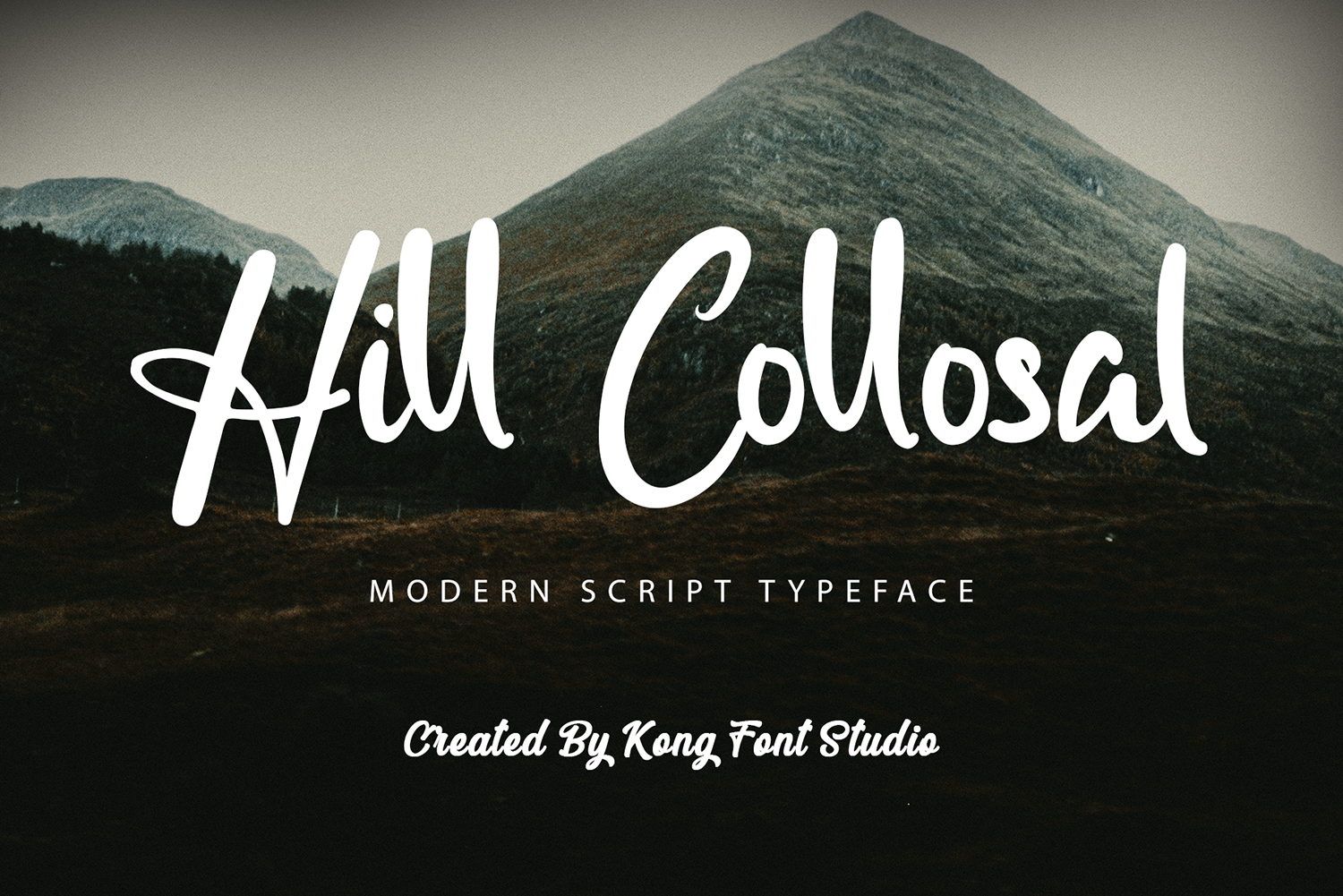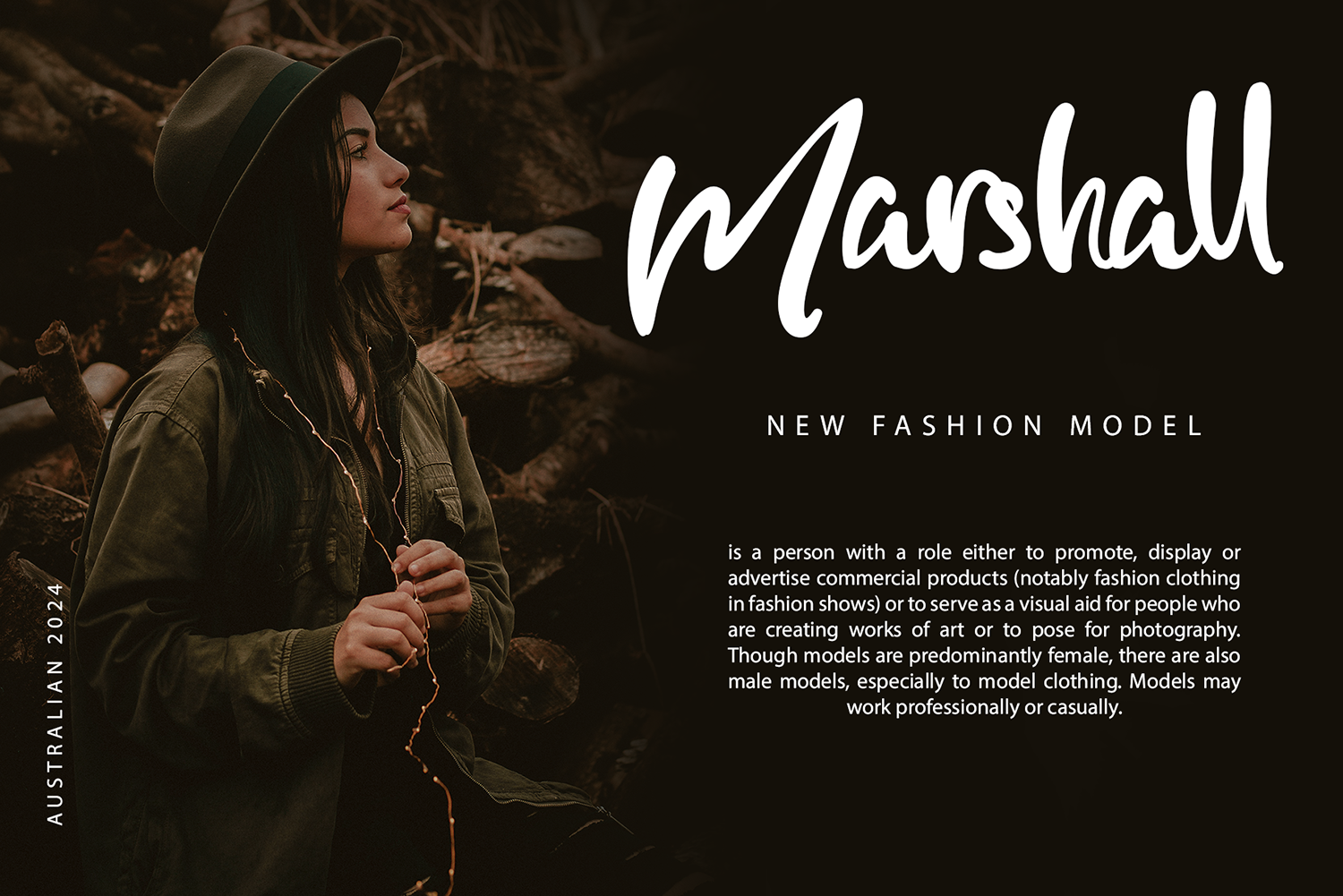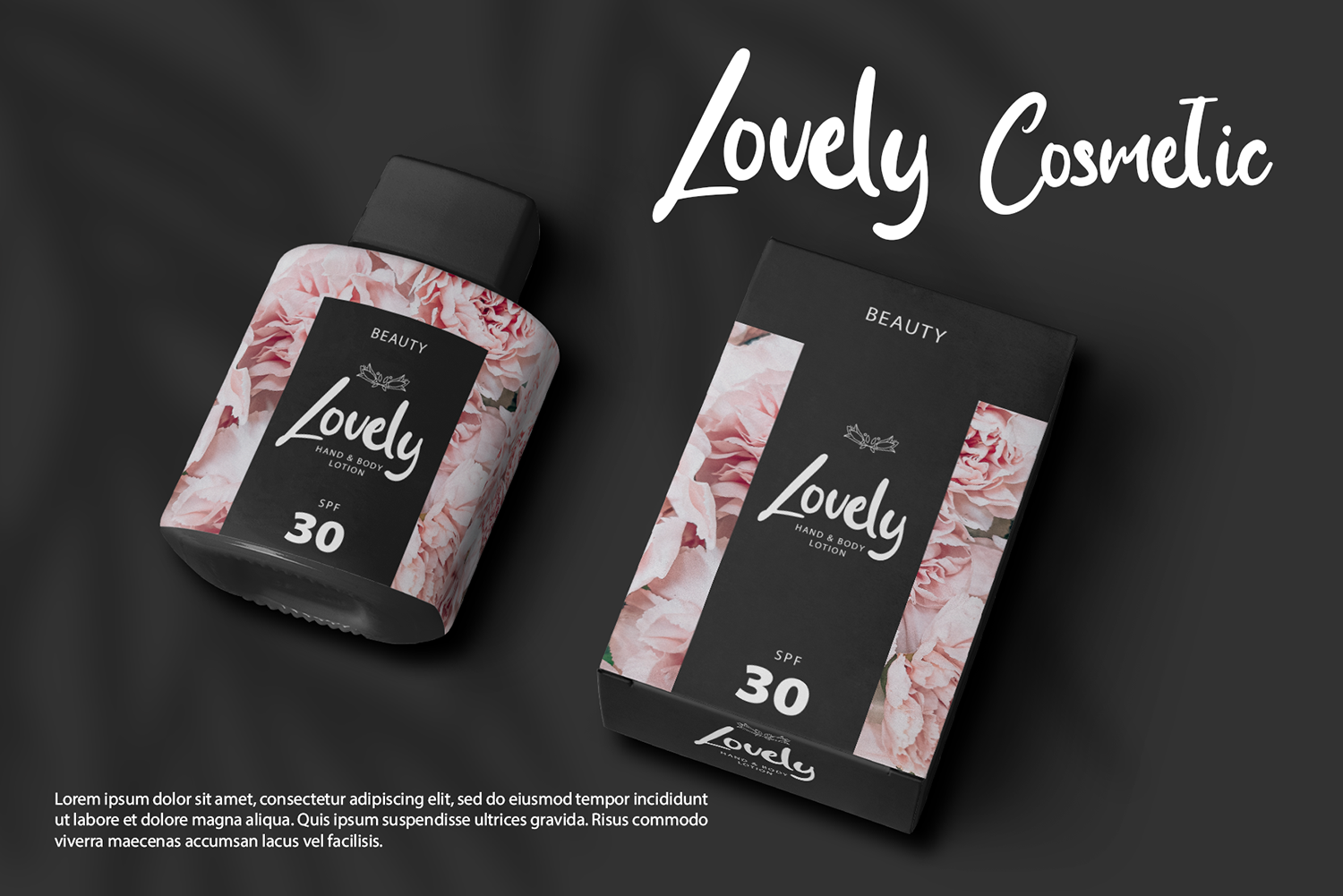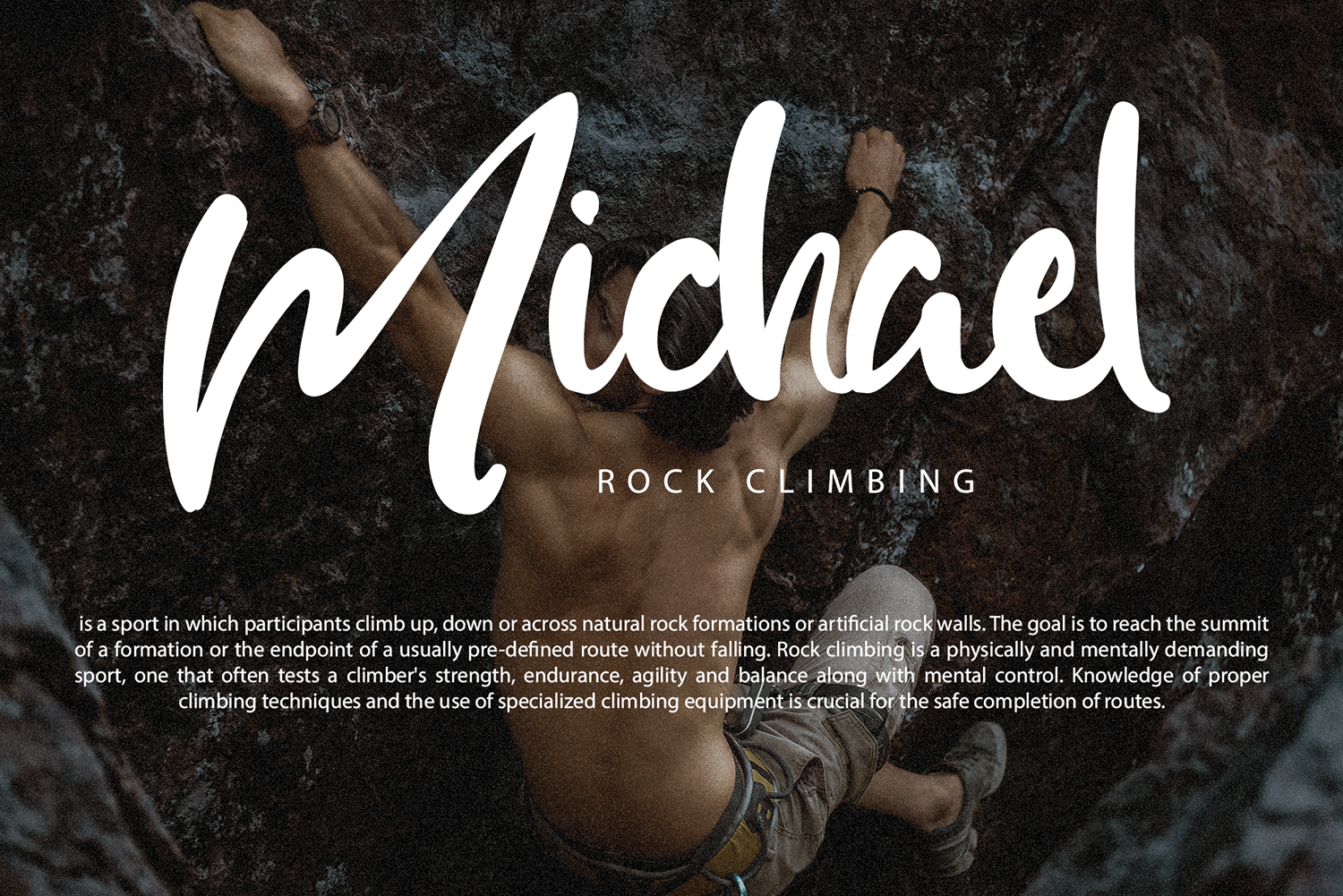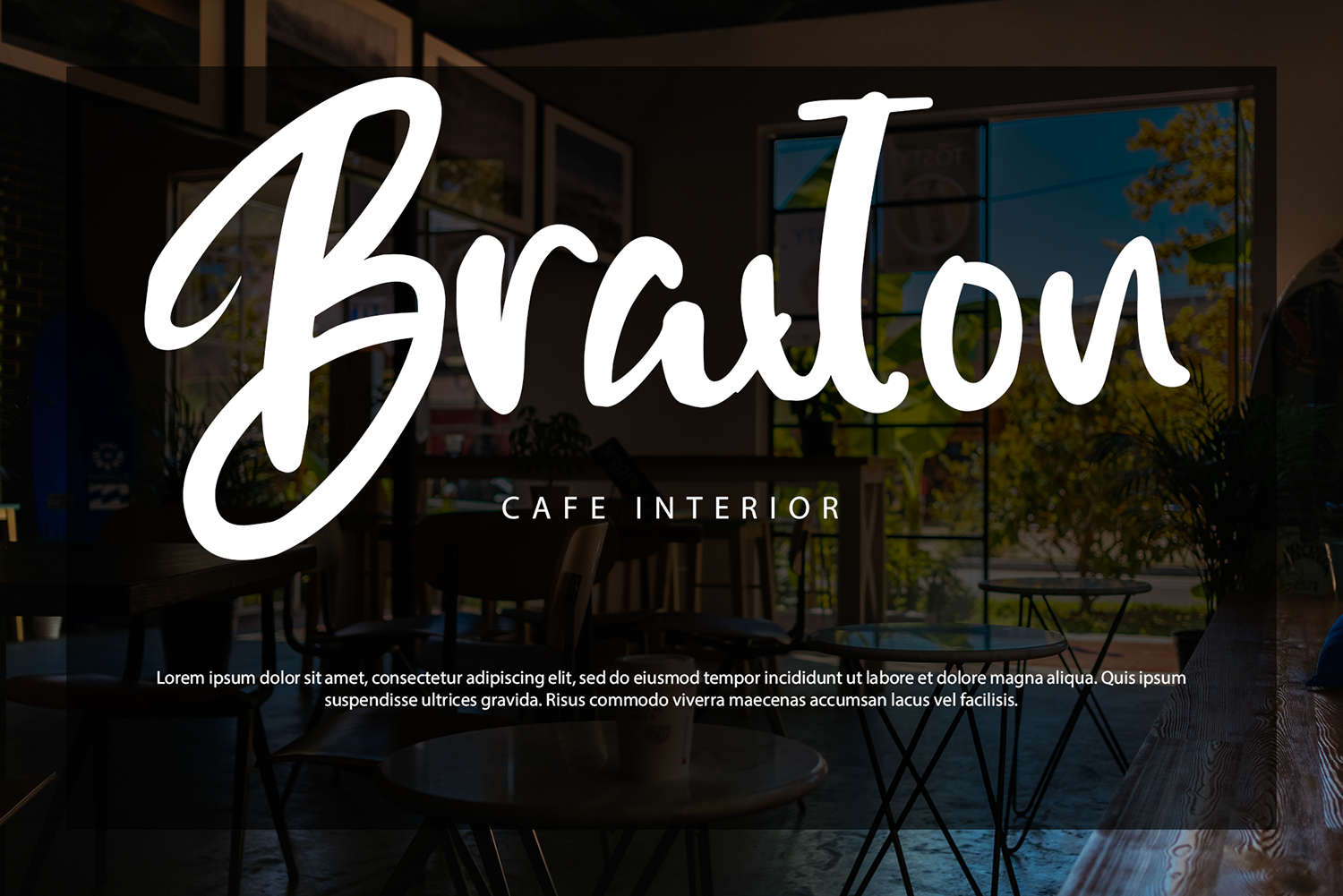
Hill Collosal Free Font
Hill Collosal Free Font represents a contemporary and lively handwritten script typeface. Tailored for both crafters and designers, this font offers a wide spectrum of potential applications. Infuse your designs with the charm of this font and unlock its limitless creative possibilities. This free typeface was designed by a talentedΒ Kong Font. If you like it don’t forget to check out the full version.